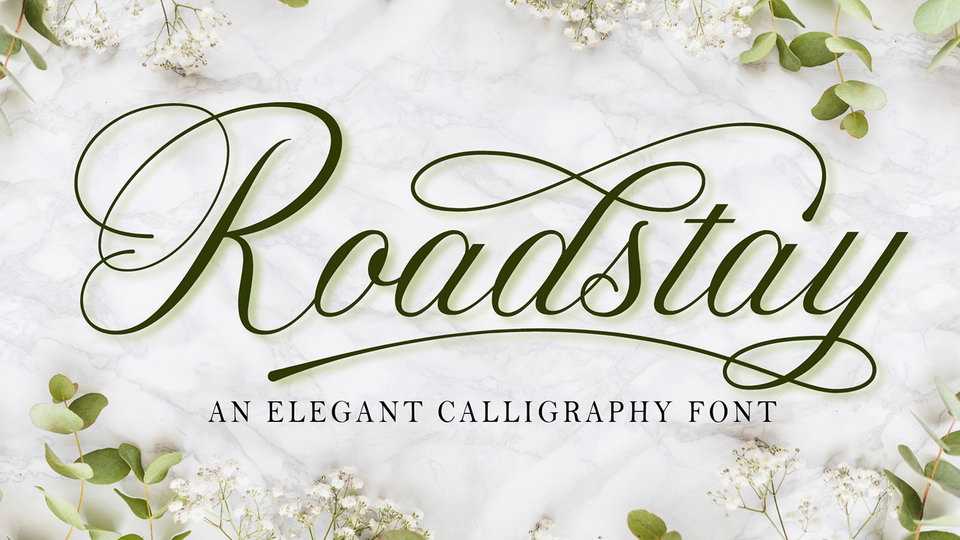
Download Roadstay font, an elegant calligraphy script. Roadstay is great for many design projects such as product brand, quotes, clothes, business card, wedding invitation, signature, logos, etc.
Designer: Mas Fik